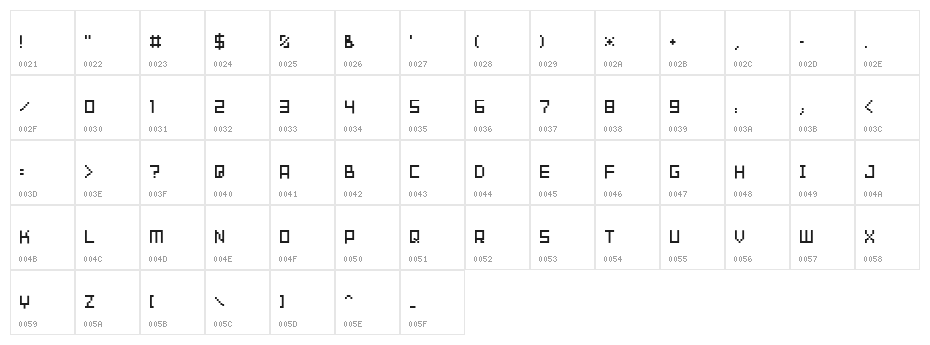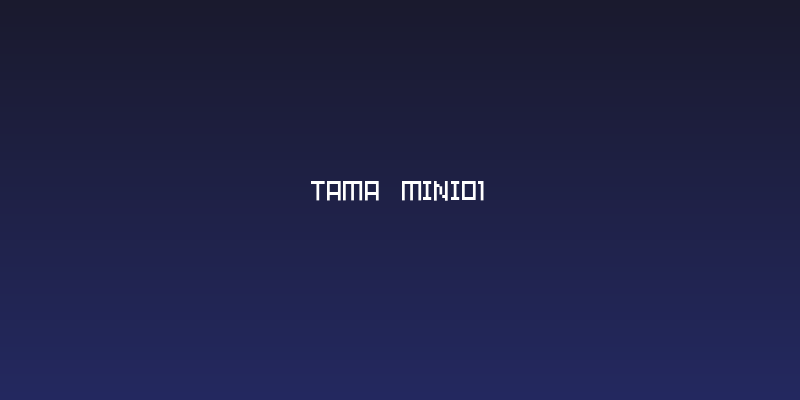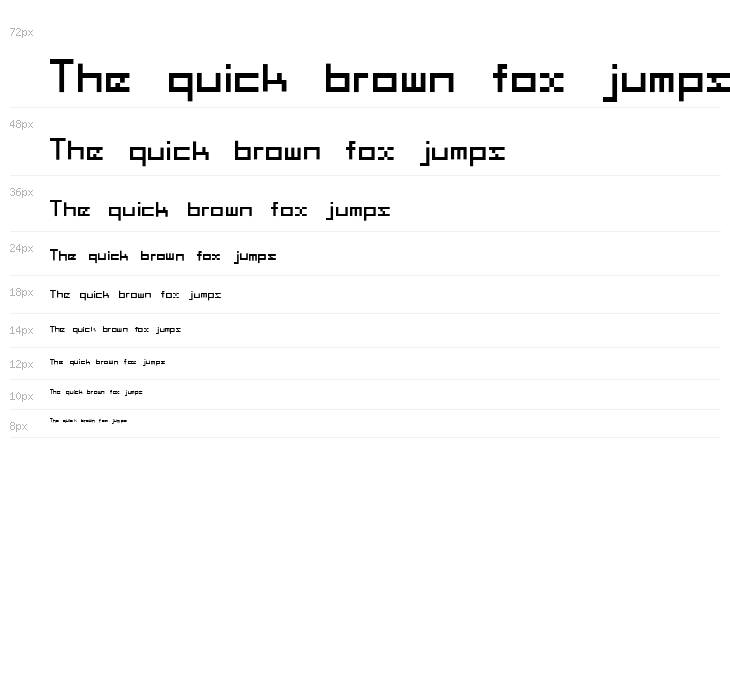
tama mini01 Font
tama mini01 Description
This font features a pixelated, blocky design reminiscent of early digital displays and retro video games. The characters are uniformly structured with sharp, angular edges, giving it a distinctly geometric appearance. The uppercase and lowercase letters maintain a consistent height, contributing to a monospaced feel. The numerals and special characters follow the same pixelated style, ensuring visual coherence across all glyphs. This font's nostalgic aesthetic makes it ideal for projects that aim to evoke a sense of vintage digital technology.
| Use Case | Headlines, Logos, Digital displays |
| Proposed Projects | Ideal for video game design, digital art projects, retro-themed posters, and tech-related branding. |